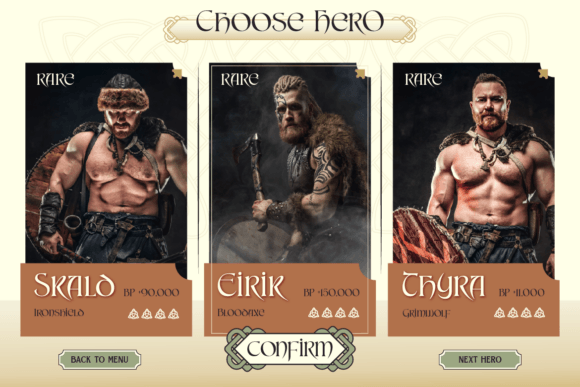
Cartius Font
Proudly present, Cartius channeled the fierce elegance of ancient Norse culture with bold, intricate strokes that echo the strength of Viking tradition. This font is inspired by ancient manuscripts, sacred text, and traditional Celtic art.
The style emerged around the 6th to 7th centuries, and inhabited regions like Ireland, Scotland, and Britain. Perfect for adding a touch of historical elegance with a Viking sense, spirit of the Celtic world, medieval design, and fantasy themes, ideal for projects that require a unique and timeless look. Giving your text an instantly rich of the legacy Celtic culture and recognizable and captivating style.